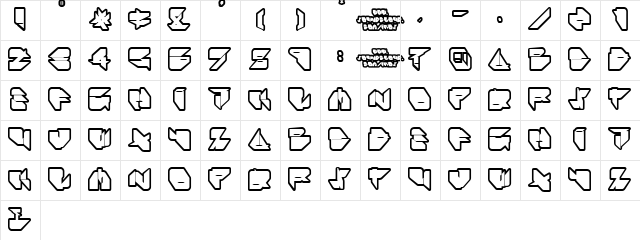
Ikos Dub Outline Regular
Design Context for Ikos Dub Outline
Ikos Dub Outline is built around its visual character rather than neutral utility - its distinctive forms are designed to make an impression at display sizes.
Font Pairing: Pair with a clean neutral sans-serif for body copy to let Ikos Dub Outline's character lead without overwhelming the composition.
Pro Tip: Use Ikos Dub Outline exclusively at display sizes - it was designed to be seen, not read at length. Let a neutral companion handle body copy.